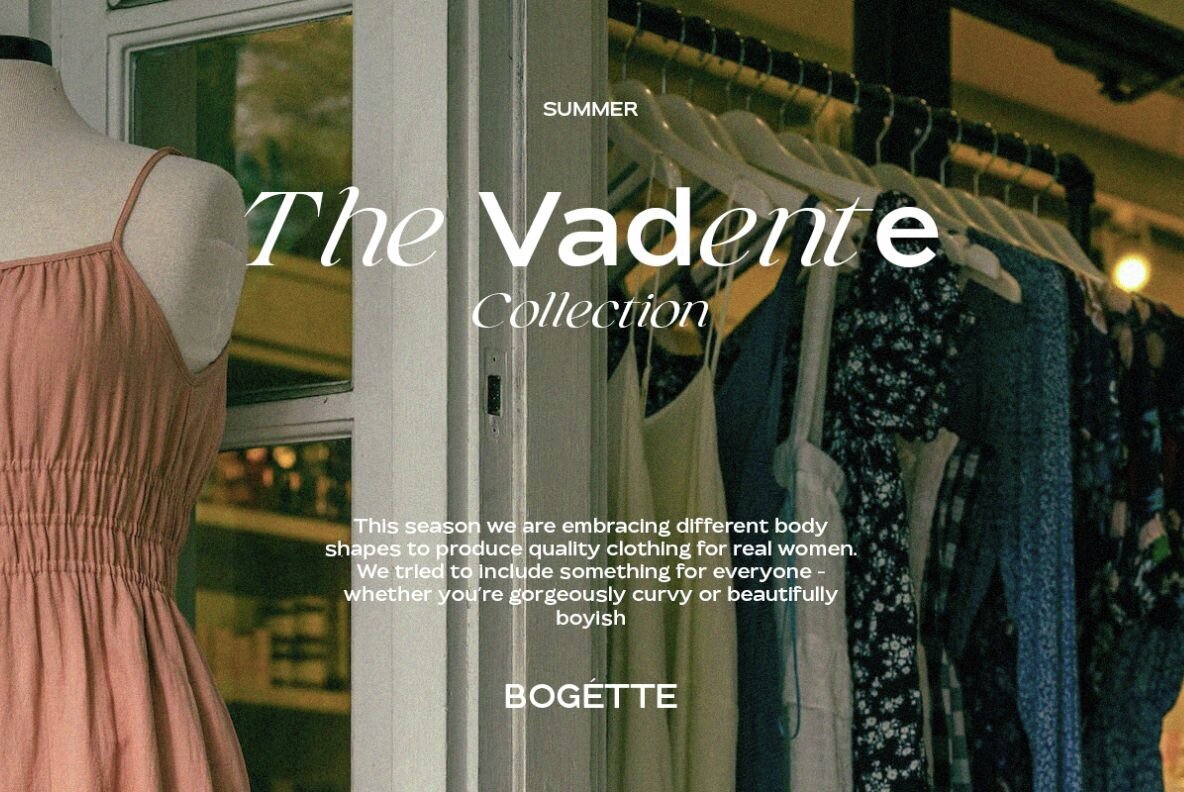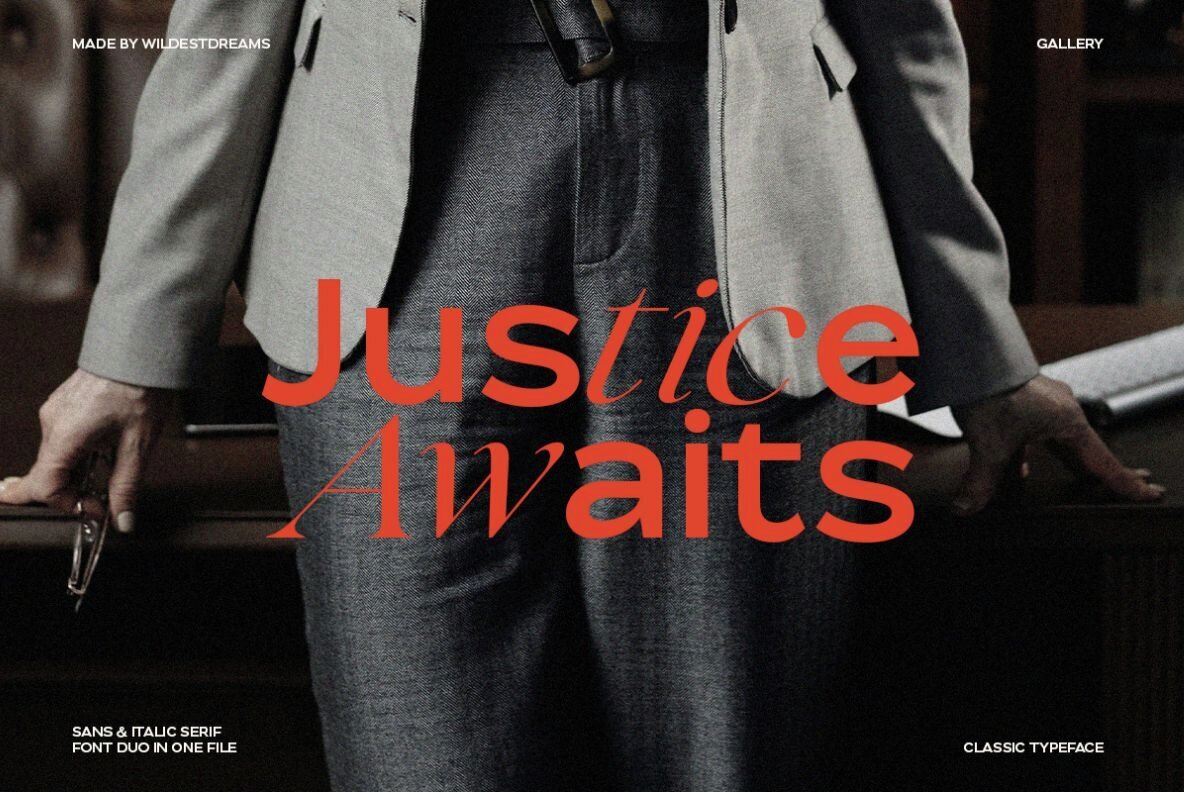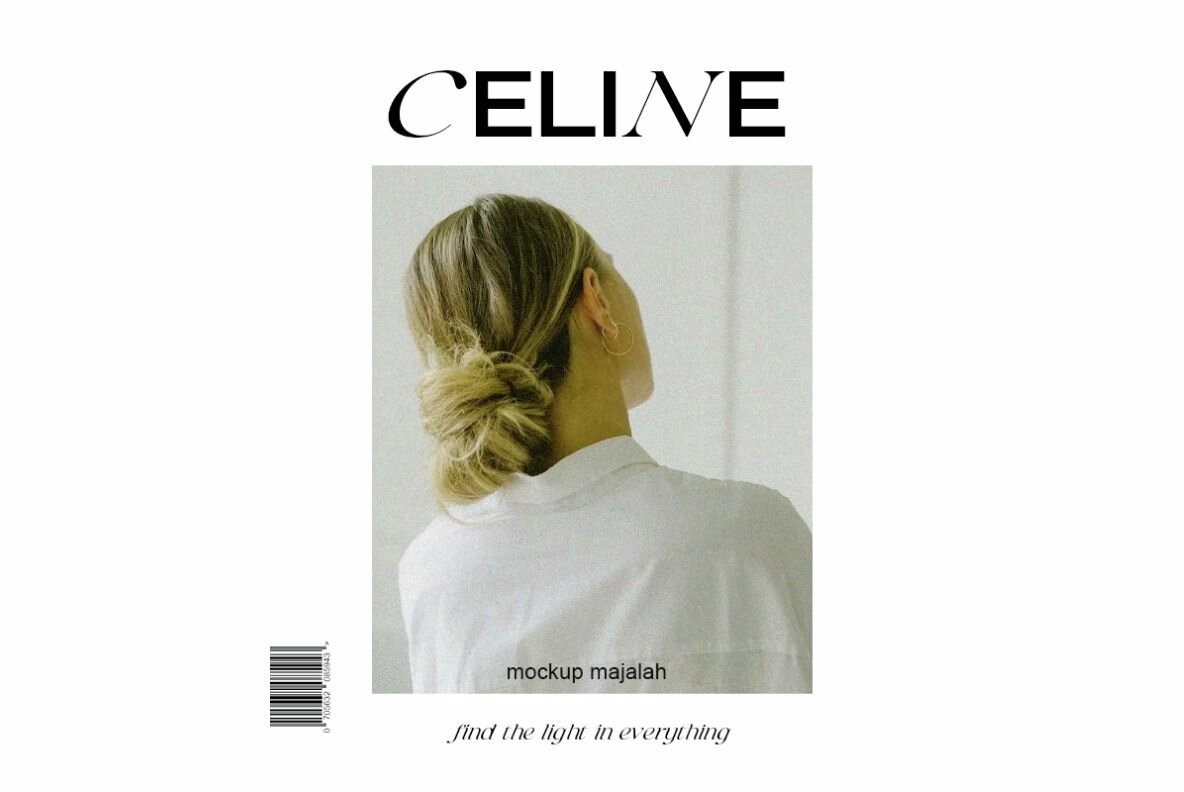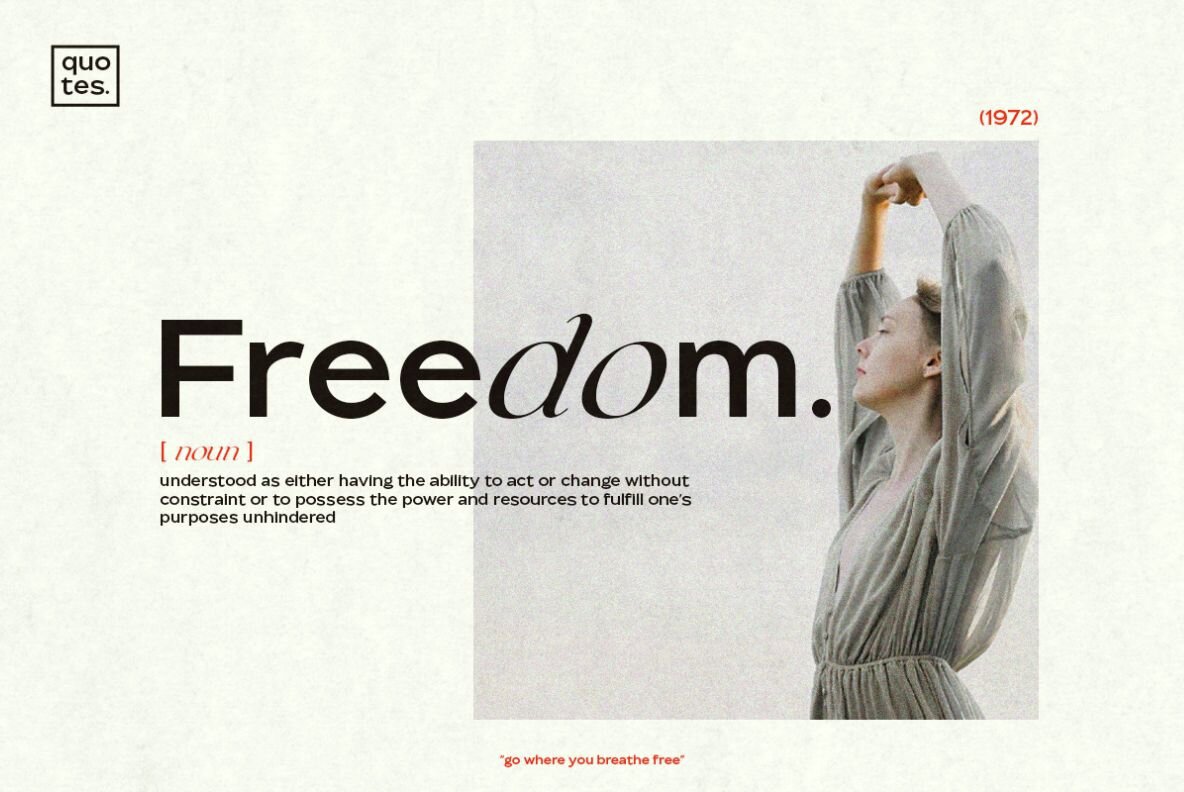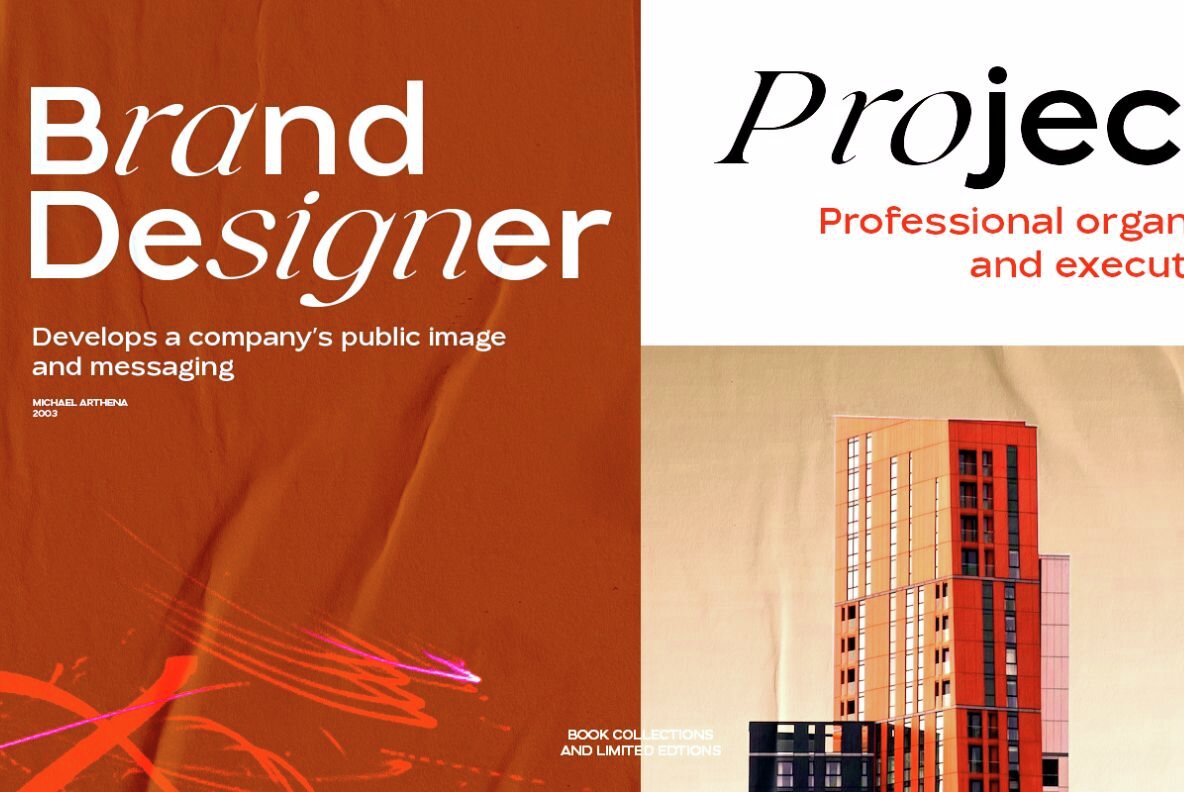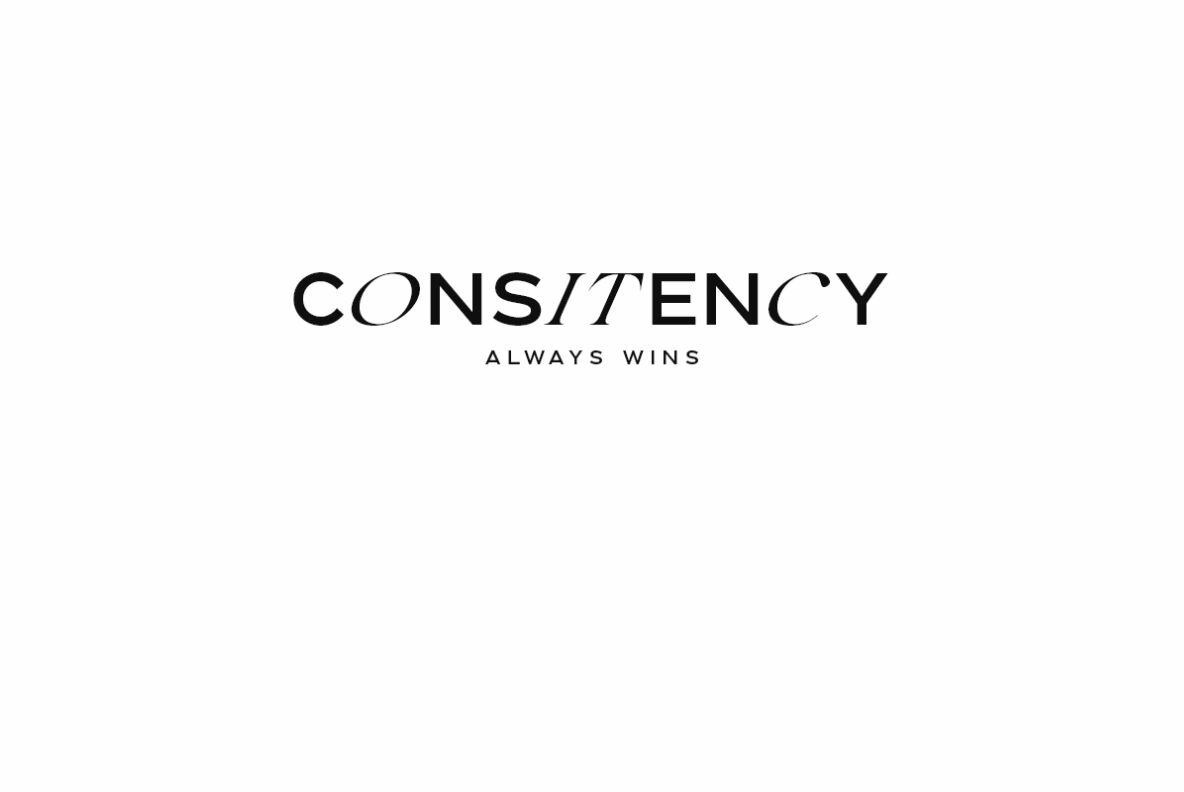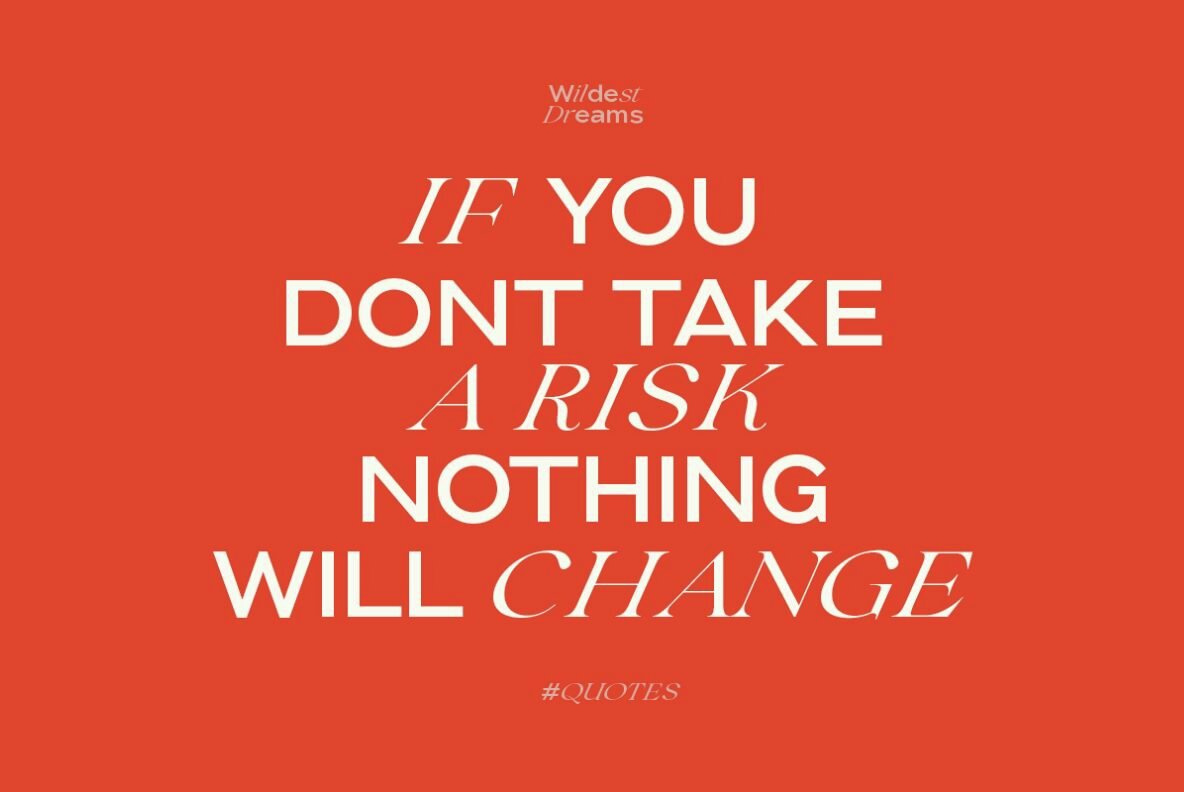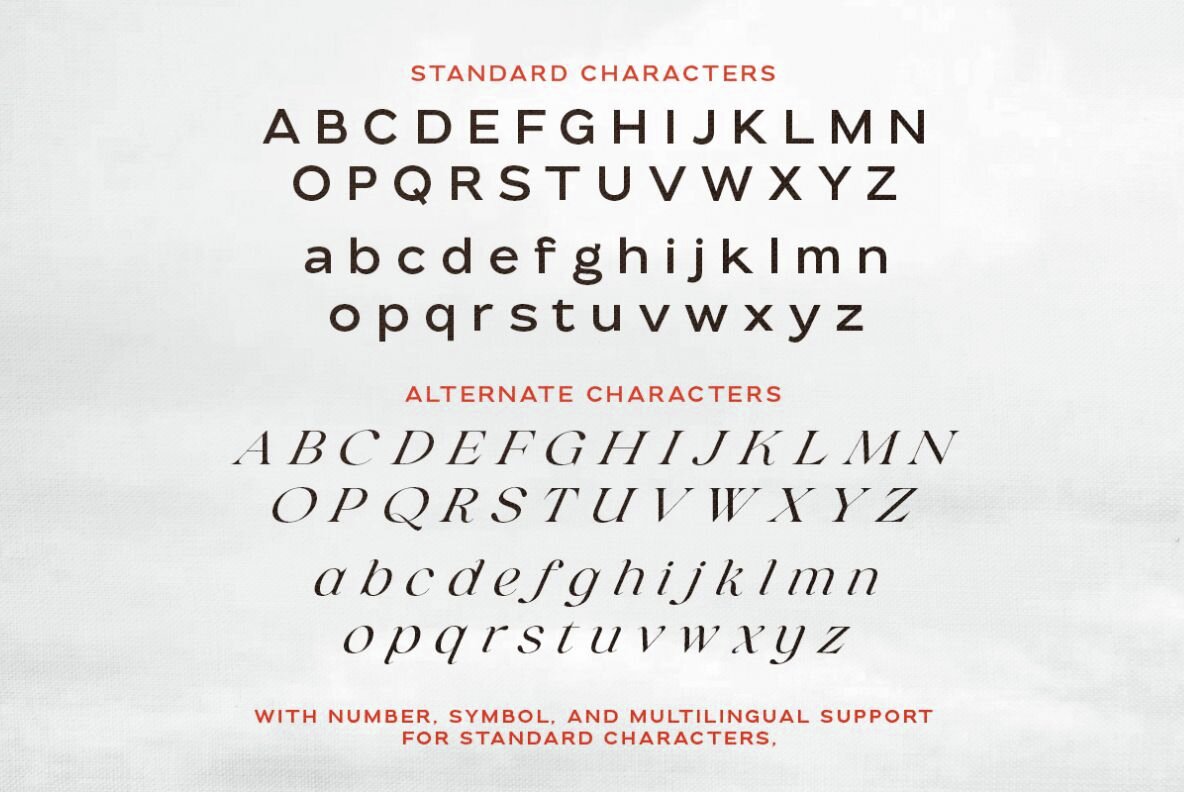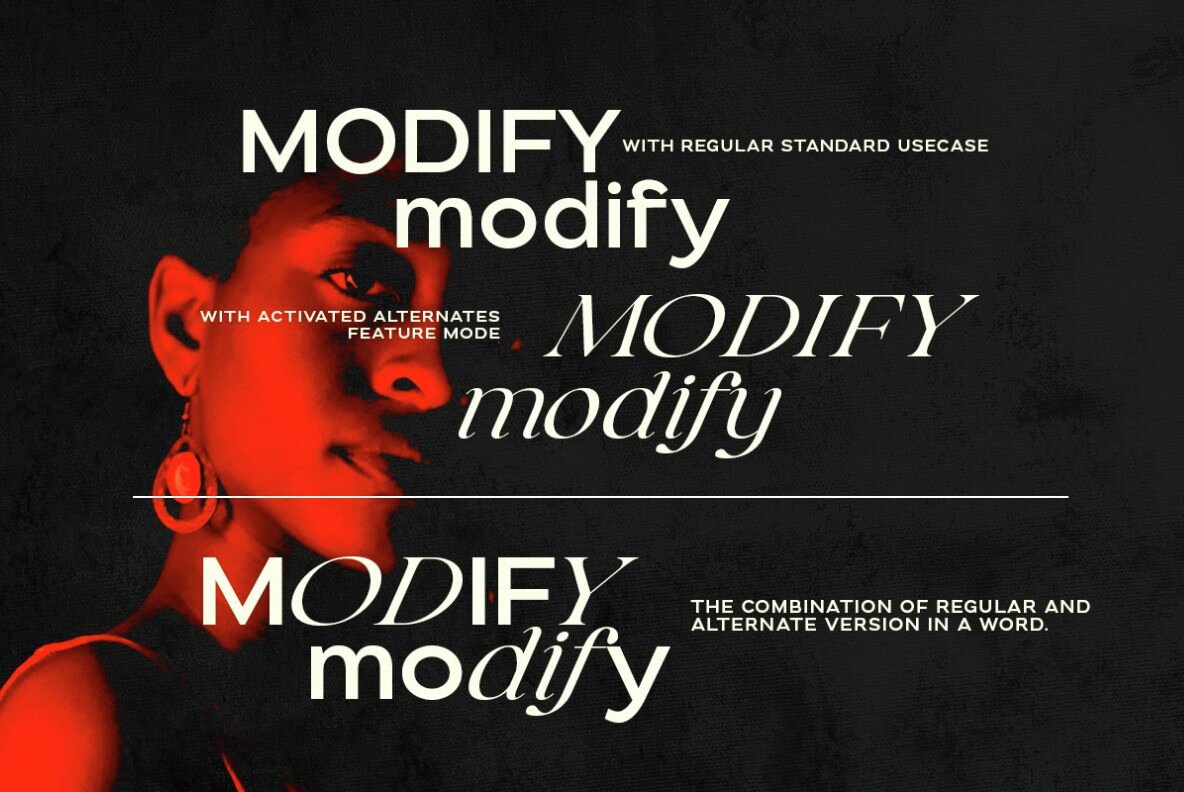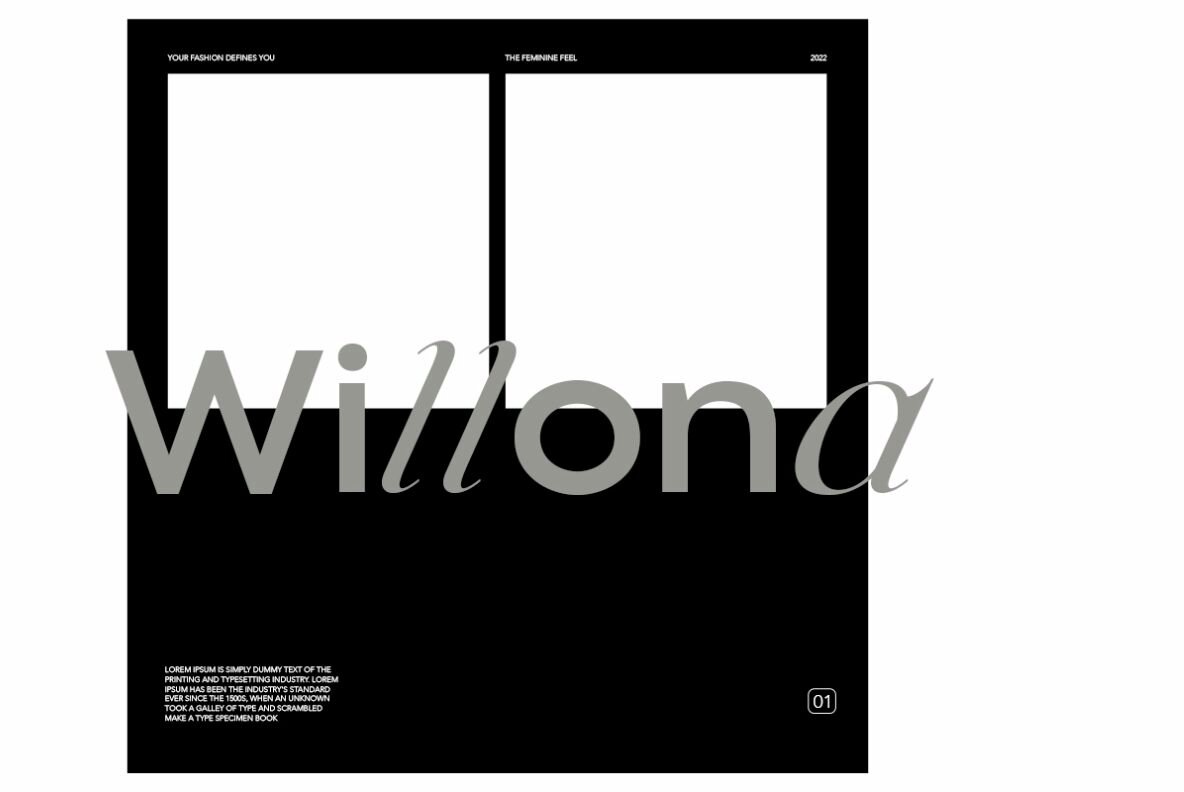
Wildest Dreams is a contemporary typeface that uniquely blends sans-serif and serif styles. The standard characters feature a minimalist sans-serif design, while italic serif characters can be accessed via OpenType features as alternates. This flexibility allows you to mix standard and alternate styles within a single word, creating striking and dynamic text.
Ideal for magazines, posters, and headlines, Wildest Dreams supports multiple languages, enhancing its versatility and usability across different projects. Its modern and elegant design makes it a reliable choice for various design needs, ensuring your text remains both sophisticated and visually compelling.